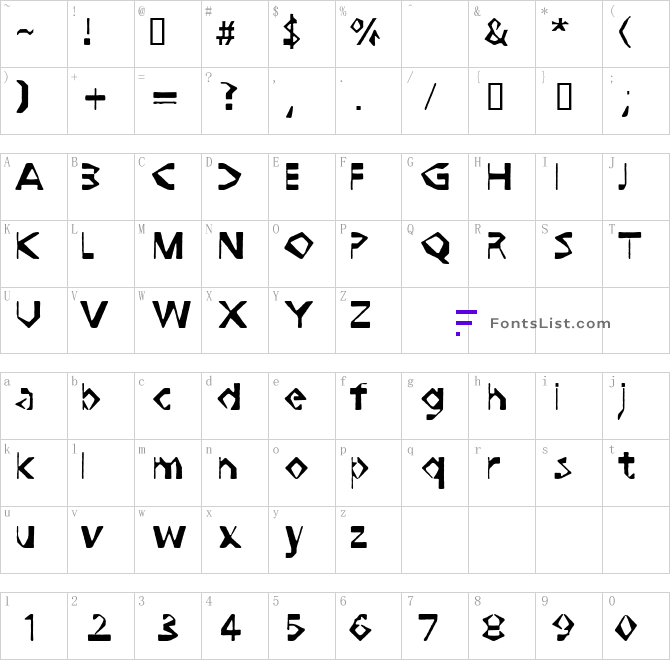
- Font Name:Assuri
Assuri.ttf is a very beautiful artistic font, Assuri.ttf is widely used in the design and printing of various books and pictures,Assuri.ttf has a strong visual impact,Assuri.ttf is a commonly used font in newspapers, magazines and books, and is used in posters, e-commerce Poster design, store design, logo design, font design and other fields.Assuri.